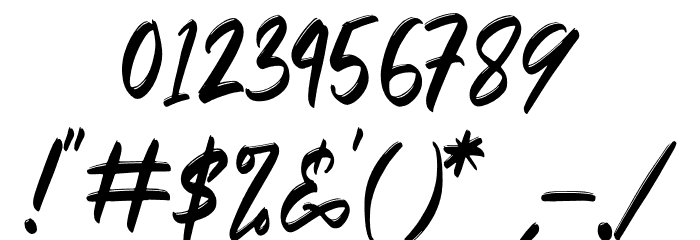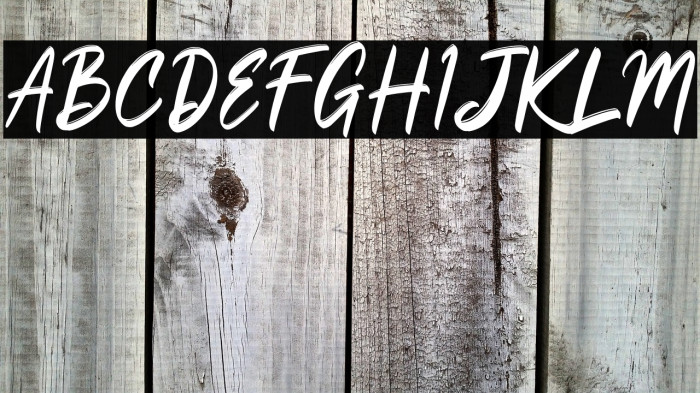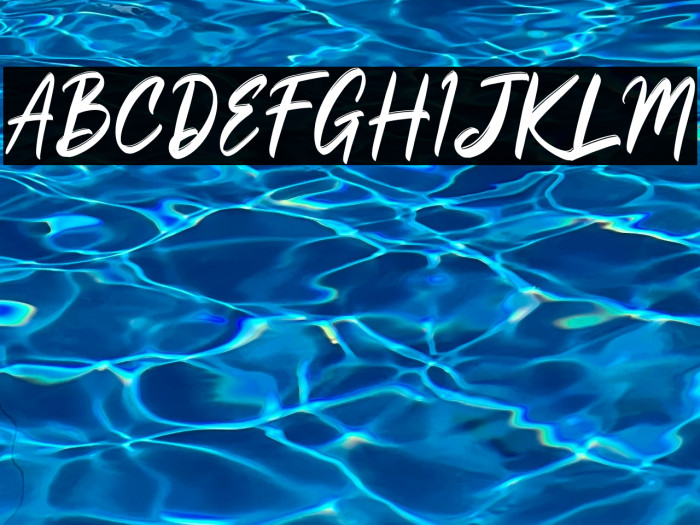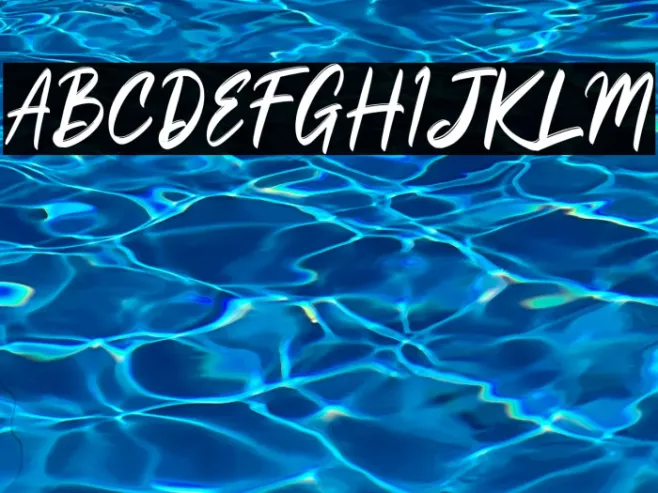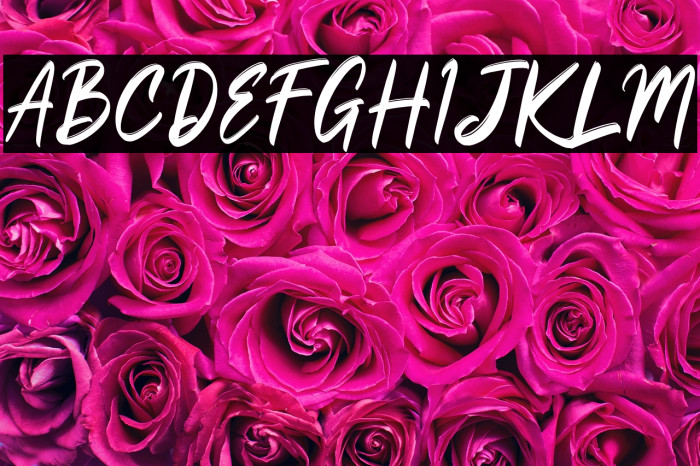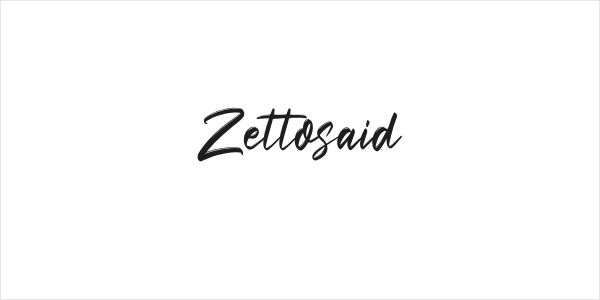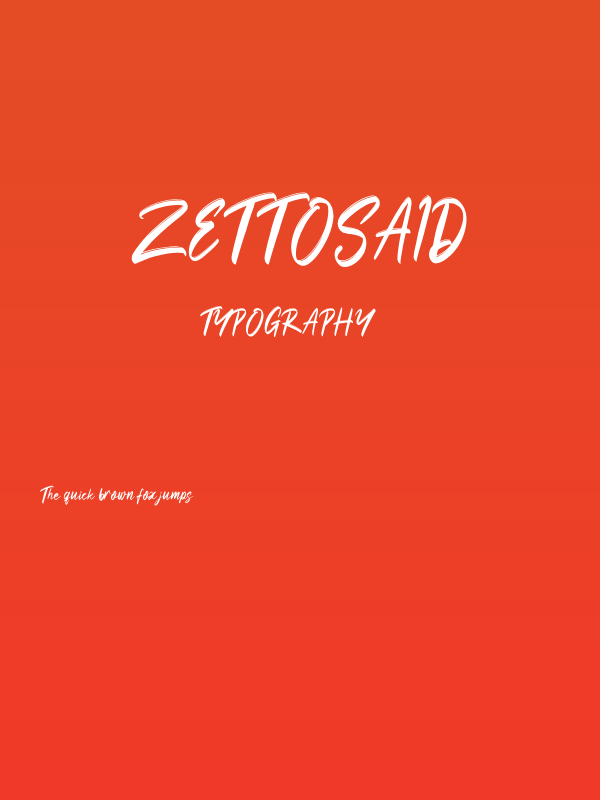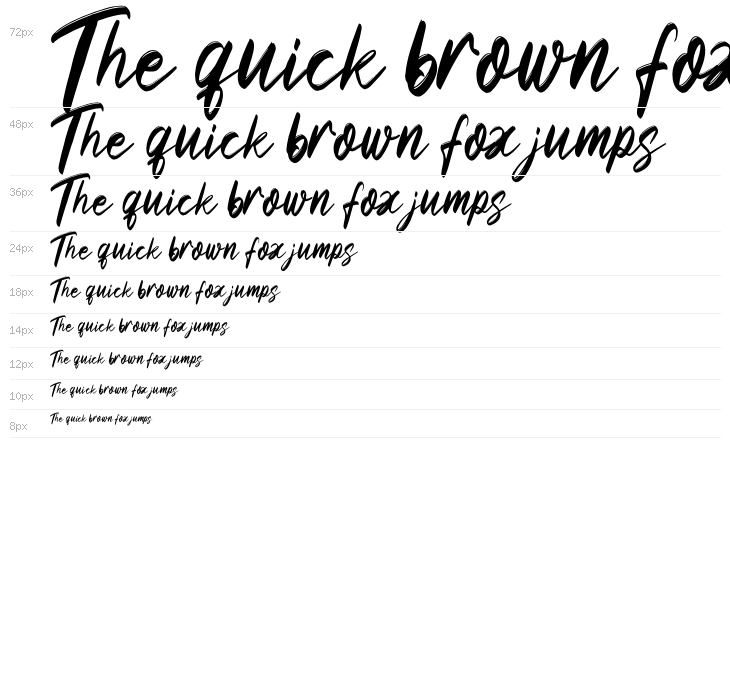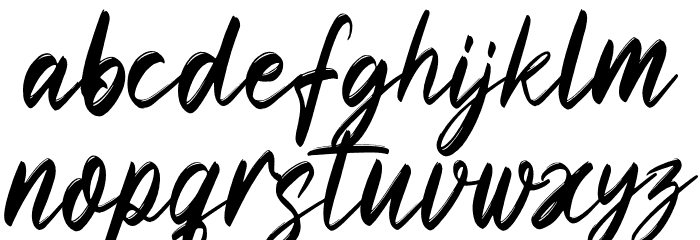
Zettosaid Font
Zettosaid Description
This font features a dynamic and expressive script style, characterized by its fluid, cursive strokes that mimic the natural flow of handwriting. The letters are interconnected, creating a seamless and elegant appearance. The uppercase letters maintain a consistent height, while the lowercase letters exhibit a slight slant, enhancing the handwritten effect. The numerals and special characters are crafted with the same attention to detail, ensuring uniformity across all elements. The overall design exudes a sense of sophistication and creativity, making it suitable for projects that require a personal touch.